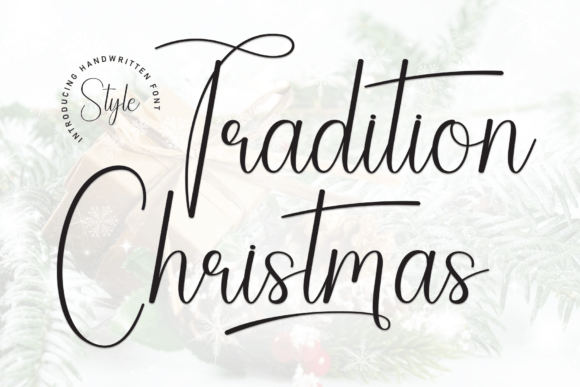
Welcome to a world of festive cheer and whimsical charm with Tradition Christmas Font, a captivating script font family that will add a touch of delight to all your design endeavors. With its enchanting handwritten style and playful characters, Tradition Christmas is the perfect font for bringing a sense of warmth and joy to your creative projects.
Whether you're crafting wedding invitations that exude romance and elegance, creating cards that spread holiday cheer, or designing eye-catching posters for festive events, Tradition Christmas is your go-to font. Its inviting curves and charming imperfections will instantly add a personal touch and a sense of heartfelt connection to your designs.
With its effortless flow and bouncy rhythm, Tradition Christmas is a dream to work with. It seamlessly blends classic elegance with a modern twist, making it suitable for a wide range of design styles. From vintage-inspired projects to contemporary layouts, Tradition Christmas will effortlessly elevate your designs and leave a lasting impression.
Explore the endless possibilities of Tradition Christmas and let your creativity flourish. Its versatility extends to various design applications, including logos, branding, social media graphics, and website designs. Whether you're a seasoned designer or just starting, Tradition Christmas is the perfect font to add a touch of magic to your work.
Join the countless designers who have fallen in love with Tradition Christmas and experience the joy of creating designs that truly captivate and inspire. Its sweet and friendly personality will bring a smile to your face and add a touch of enchantment to your everyday design tasks.